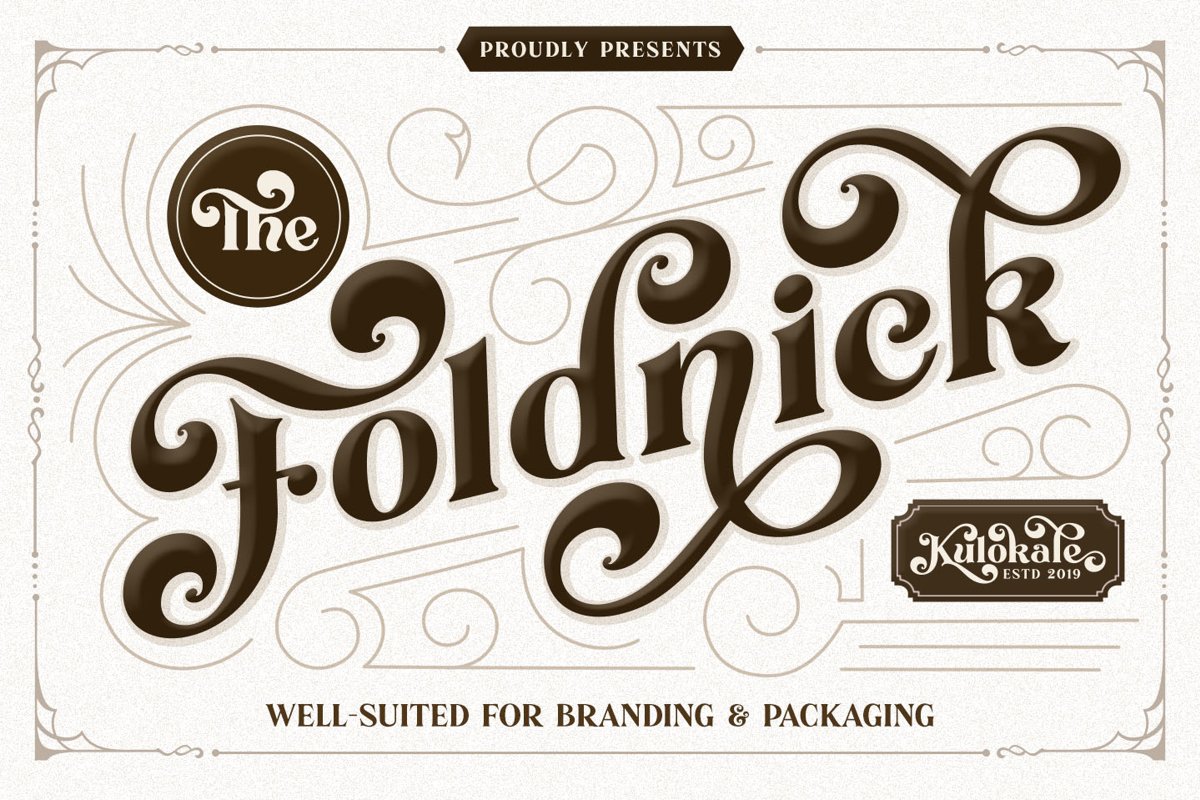
The Foldnick
Foldnick
Foldnick Italic
Display font with
beautiful alternate characters and also ligature which makes it easy for
you to create a logo for your business branding beautifully.
Foldnick is perfect for many different projects such as logos &
branding, invitation, stationery, wedding designs, social media posts,
advertisements, printed quotes, product packaging, product designs,
label, photography, watermark, special events or anything.